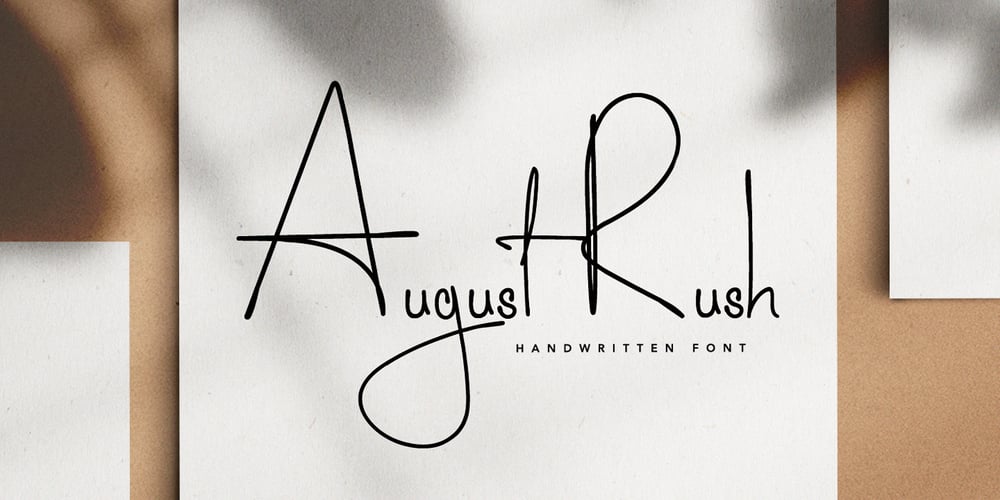
August Rush Font Family was designed by Callie Sharp and published by Callie Sharp. August Rush contains 2 styles and family package options. August Rush is a delicate handwritten script font. The font comes in 2 weight options: regular and semi-bold. It’s best used as a main headlines or as a secondary headline combed with other simple serif or sans-serif fonts. It can be used for various designs such as packaging, wedding stationery or branding.